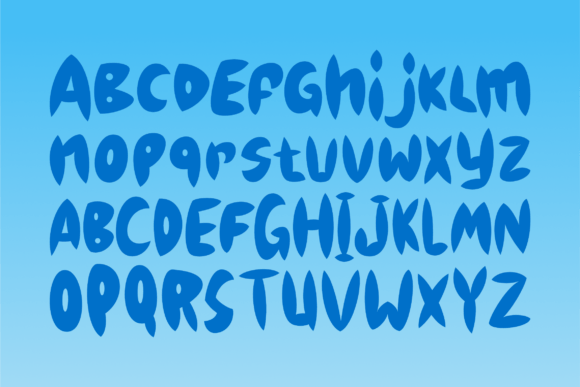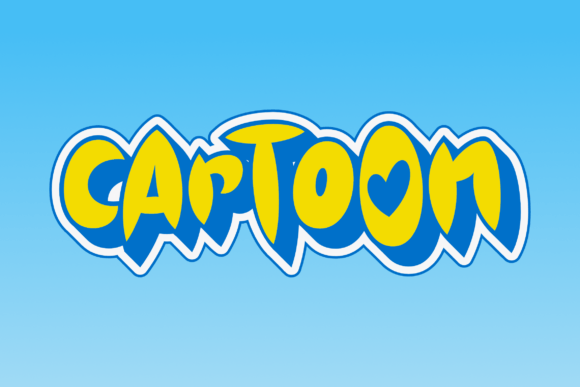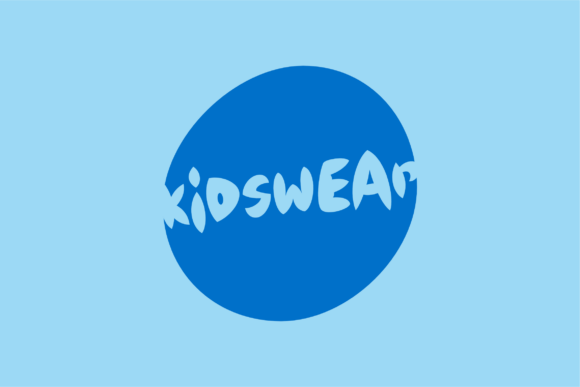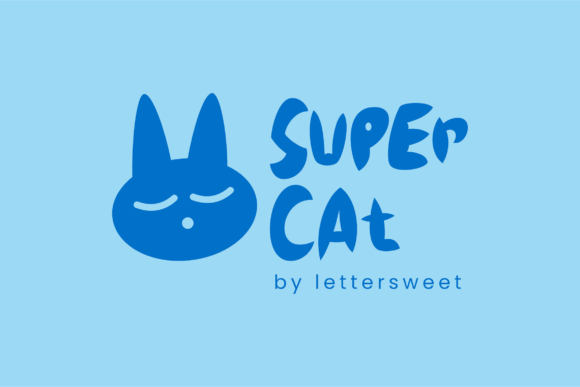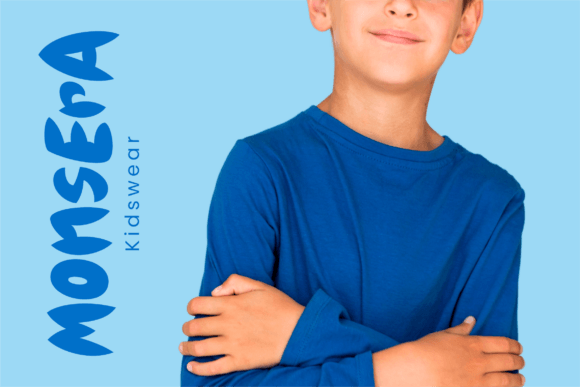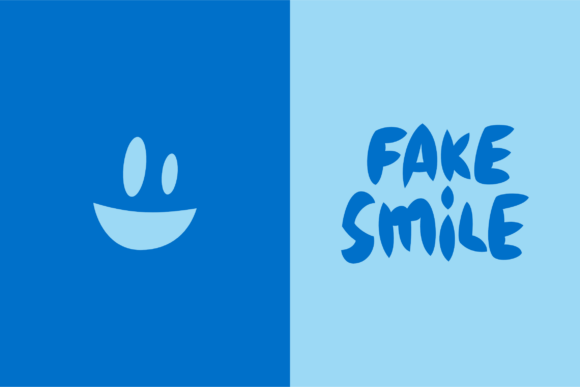
Discover the Joy of Bouncy Clouds Font
I’ll never forget the time I was working on a children’s book project, and I just couldn’t find the right font to match the playful illustrations. The client wanted something that would bring a smile to kids’ faces, but everything I tried seemed either too boring or too over-the-top. That’s when I stumbled upon Bouncy Clouds Font – a game-changer for any project that needs a lively and lighthearted touch!
A Personal Review of Bouncy Clouds Font
- ✅ The soft, rounded shapes and dynamic layering options make it perfect for creating eye-catching designs.
- ✅ The bold and chunky letterforms are reminiscent of fluffy clouds, adding a touch of whimsy to any project.
- ✅ The inclusion of dingbat icons is a thoughtful bonus, allowing for easy addition of decorative elements to enhance typography.
- ✅ It’s incredibly versatile, suitable for various design projects such as posters, logos, product packaging, and more.
While Bouncy Clouds Font is amazing, there are a few minor things to keep in mind:
- 🤔 The font’s playful nature might not make it the best fit for very formal or professional projects.
- ⚠️ Some of the layered styles can be a bit tricky to navigate, especially for beginners.
- Experiment with the OpenType features, such as stylistic alternates and glyphs, to add variety to your text.
- Don’t forget to check out the dingbat icons to add a decorative touch to your design!
The Story Behind Bouncy Clouds Font
The inspiration behind Bouncy Clouds Font comes from a designer who wanted to capture the carefree essence of childhood. With a passion for creating playful and imaginative designs, the designer aimed to craft a font that would bring joy and whimsy to any project. The result is a font that’s both fun and functional, perfect for a wide range of design applications.
| Font Name | Bouncy Clouds Font |
| Author | Lettersweet |